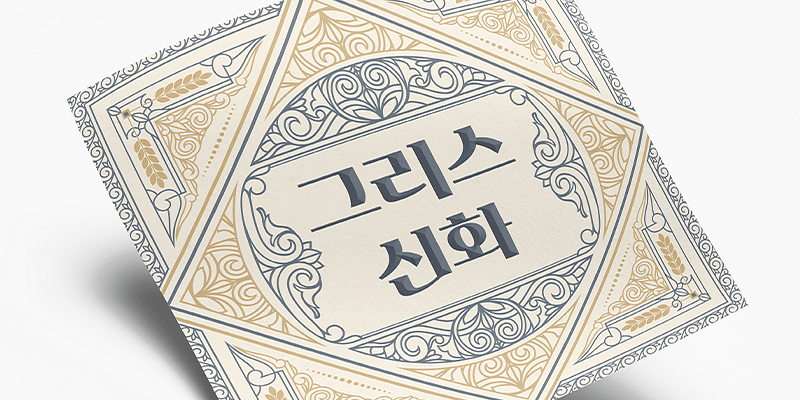
Sandoll Andante has a rhythmic form and plain designs, giving a classic look.
The font was inspired by Andante, an Italian musical term meaning to perform slowly. The contrast is reminiscent of Bodoni, and the Serif shapes accentuate an elegance and femininity in the stiff Gothic.
Sandoll (산돌) is a leading font foundry in Korea. It has been developing nearly 600 fonts for about 40 years. The foundry has a variety of experiences of multi-language projects such as CJK development and matching Korean and other scripts.